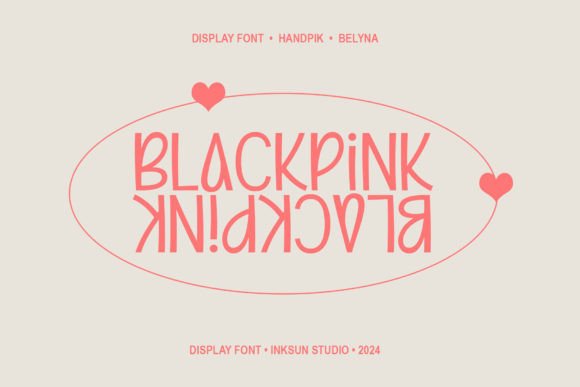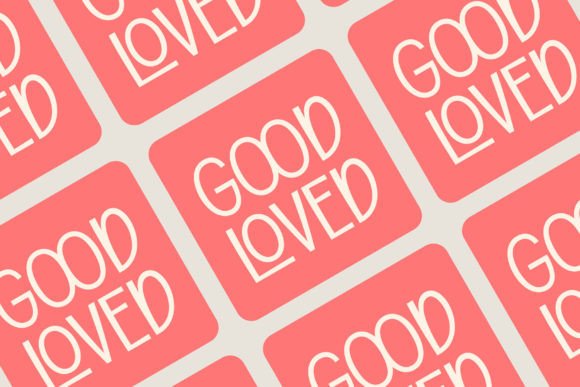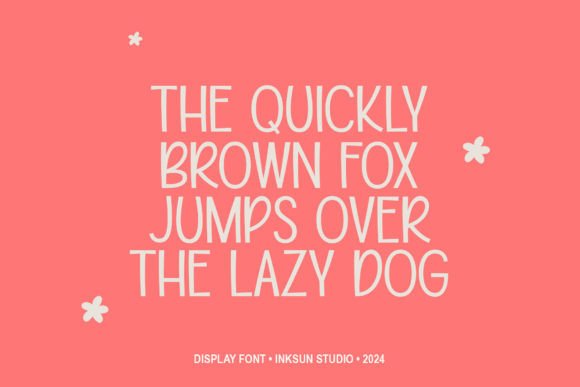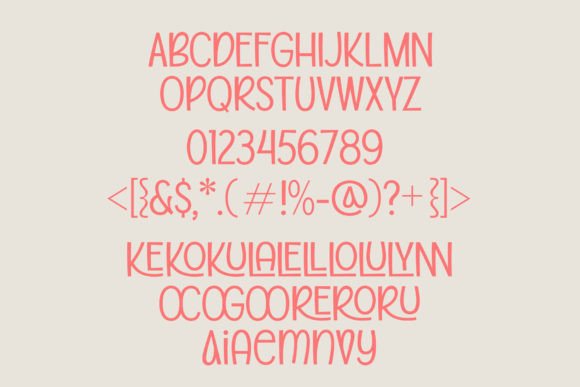
Discover the Charm of Belyna Font: A Sweet and Friendly Sans Serif
Are you on the hunt for a font that can add a touch of warmth and personality to your designs? Look no further than Belyna Font, a sweet and friendly sans serif font that’s perfect for a wide range of creative projects. With its natural and unique style, Belyna is incredibly versatile and can be used in everything from branding and advertising to crafting and DIY tutorials.
The Characteristics of Belyna Font
Belyna Font is a sans serif font, which means it doesn’t have the small lines or flourishes that you often see at the ends of letters in serif fonts. This gives Belyna a clean and modern look that’s perfect for designs that need to feel fresh and contemporary. Despite its modern aesthetic, Belyna has a distinctly friendly and approachable feel that’s hard to find in other sans serif fonts.
One of the standout features of Belyna is its unique style, which is both natural and highly legible. The letters in Belyna have a subtle rounded quality that gives the font a soft and welcoming feel, making it perfect for designs that need to convey a sense of warmth and approachability.
The Benefits of Using Belyna Font
So why should you choose Belyna Font for your next design project? For starters, its versatility is hard to beat. Whether you’re working on a logo, a brochure, or a social media graphic, Belyna is a font that can adapt to any design style or theme. Its clean lines and simple shapes make it easy to read and understand, even at small sizes.
Another benefit of Belyna is its ability to add a touch of personality to your designs. In a world where many designs can feel cold and impersonal, Belyna offers a refreshing alternative that’s both unique and engaging. Whether you’re looking to create a design that feels playful and fun, or one that’s more serious and professional, Belyna has the flexibility to deliver.
How to Use Belyna Font in Your Designs
- Pair it with other fonts: Belyna pairs well with a wide range of other fonts, from bold and dramatic to delicate and elegant. Experiment with different combinations to find the one that works best for your design.
- Experiment with colors: Belyna looks great in a wide range of colors, from bright and bold to soft and pastel. Try out different color combinations to find the one that works best for your design.
- Use it for headlines and body text: Belyna is highly legible, even at small sizes, making it perfect for both headlines and body text.
Who Can Benefit from Using Belyna Font?
Belyna Font is perfect for anyone who loves to create and design. Here are a few examples of designers and crafters who can benefit from using Belyna:
- Graphic designers: Belyna is a great font for graphic designers who need to create logos, brochures, and other marketing materials.
- Crafters: Belyna is perfect for crafters who love to make and create. Use it to add a personal touch to your crafting projects, from knitting patterns to DIY tutorials.
- Social media managers: Belyna is a great font for social media managers who need to create engaging and shareable content.
In conclusion, Belyna Font is a sweet and friendly sans serif font that’s perfect for designers and crafters who want to add a touch of warmth and personality to their designs. With its natural and unique style, Belyna is incredibly versatile and can be used in a wide range of creative projects. Whether you’re a seasoned designer or just starting out, Belyna is a font that’s sure to inspire your creativity and help you bring your ideas to life.